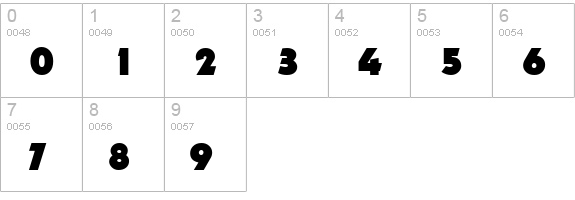
Nougat Regular Font Details
Nougat Regular is the standard, neutral variant in the Nougat typeface family \xE2\x80\x94 well suited to general body text, paragraphs, and standard typographic work.
Introducing Nougat Regular font, a delightful and charming typeface perfect for adding a touch of elegance to your design projects. With its smooth curves and stylish appearance, Nougat Regular exudes a sense of sophistication and modernity. This versatile font is ideal for a wide range of applications, from branding and packaging to invitations and advertisements. What's more, Nougat Regular is available for free download at FontsMarket.com, making it easily accessible for all your creative endeavors. Whether you're a seasoned designer looking to freshen up your portfolio or a beginner seeking a beautiful font for your latest project, Nougat Regular is sure to impress. Don't miss out on this fantastic opportunity to enhance your designs with this exquisite typeface. Download Nougat Regular today and elevate your creations to new heights of style and sophistication.